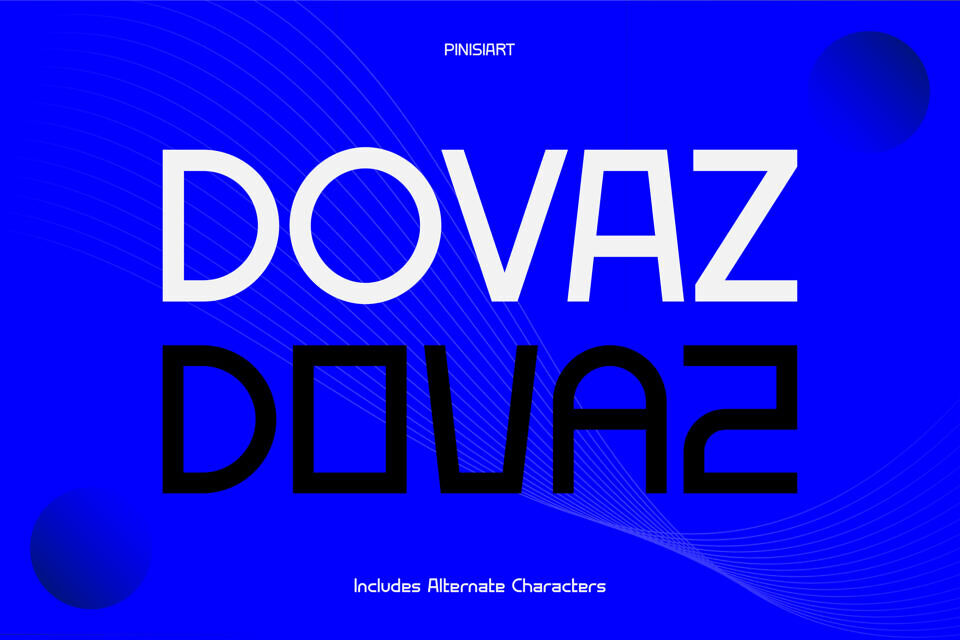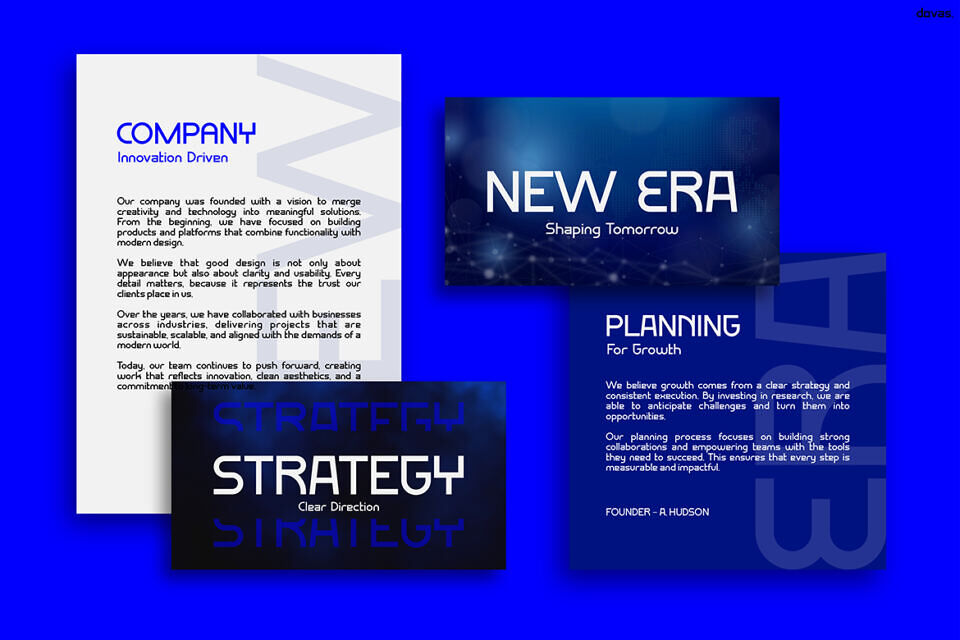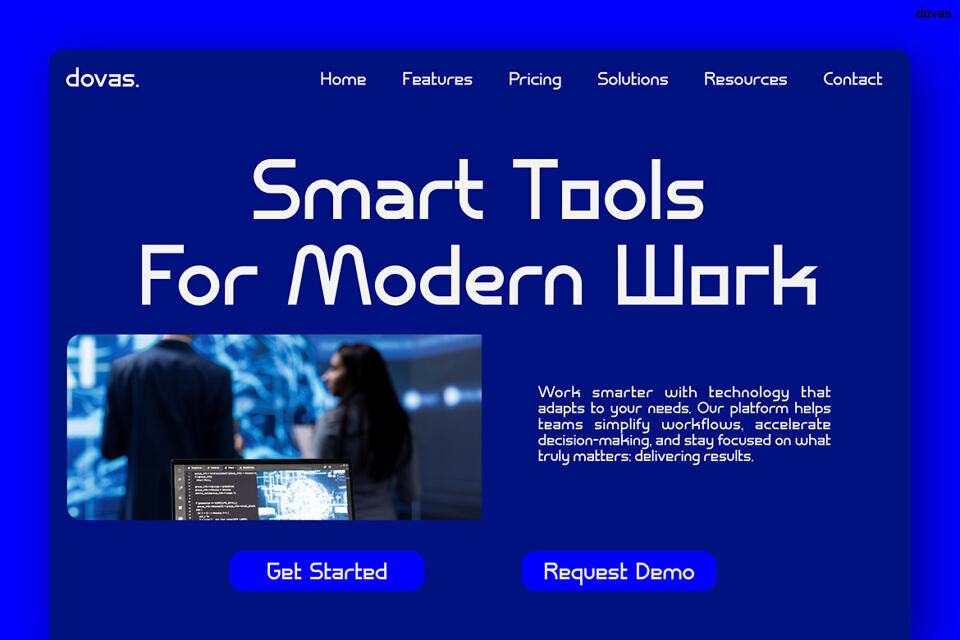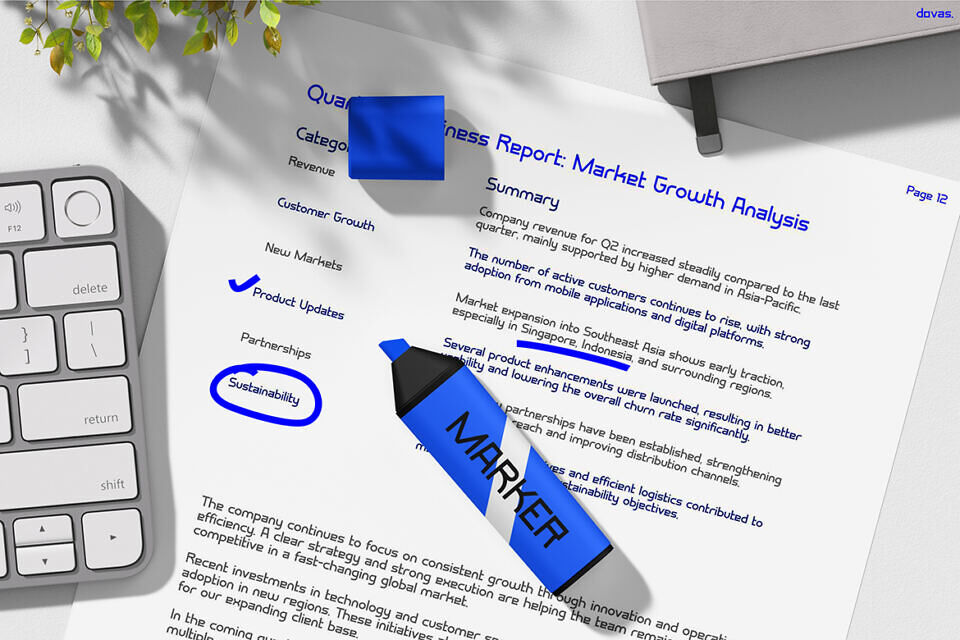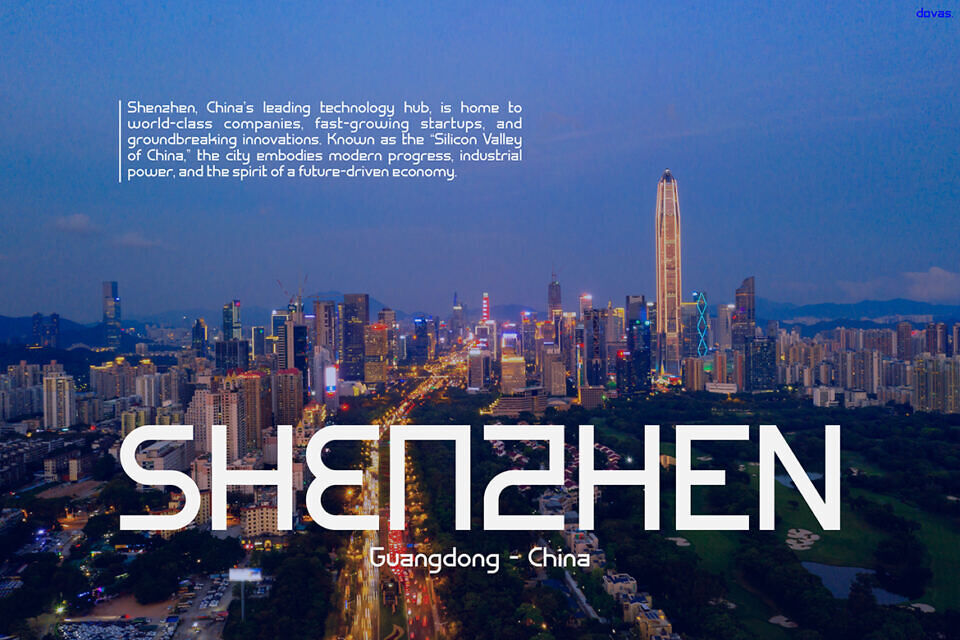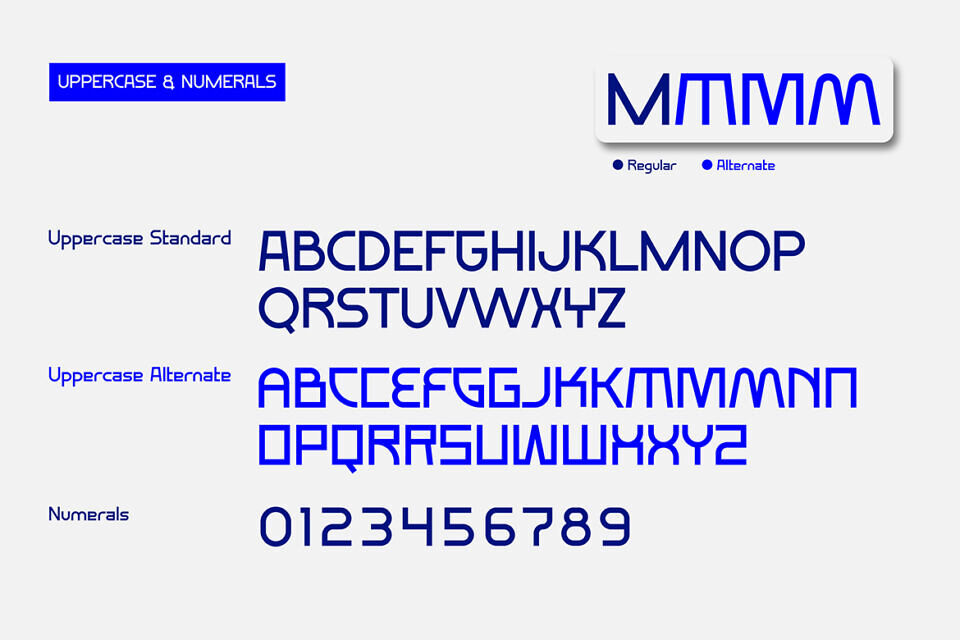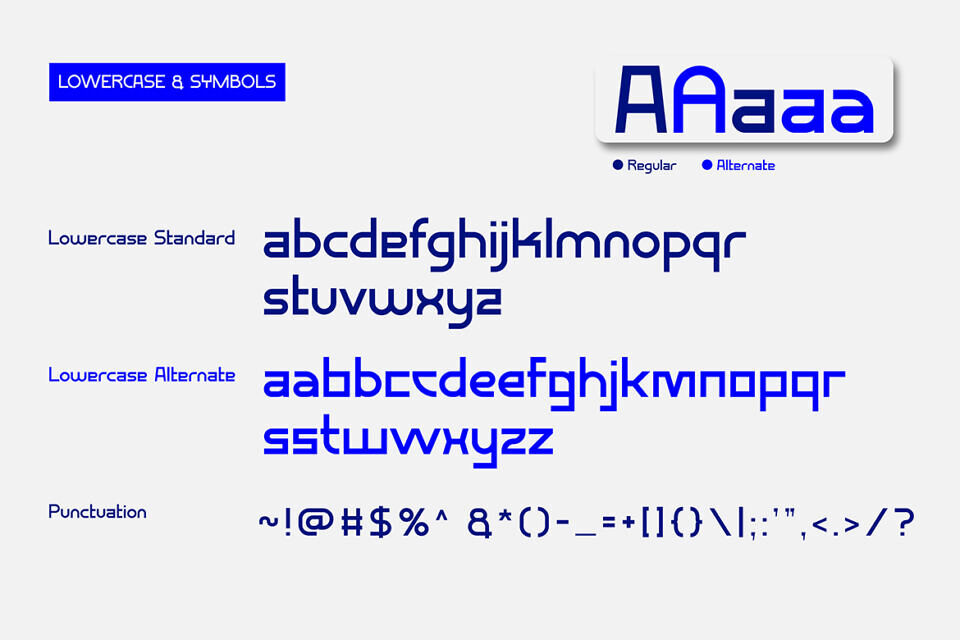
Dovaz Font
DOVAZ is a bold, geometric, futuristic typeface with crisp, contemporary lines. It has a powerful futuristic appearance that is both distinctive and polished.
Additionally, this font’s numerous alternate styles are what set it apart and allow you to freely modify and personalize your designs. Because of this, you can use DOVAZ to create projects that are clear and easy to read while also looking new, modern, and inventive.